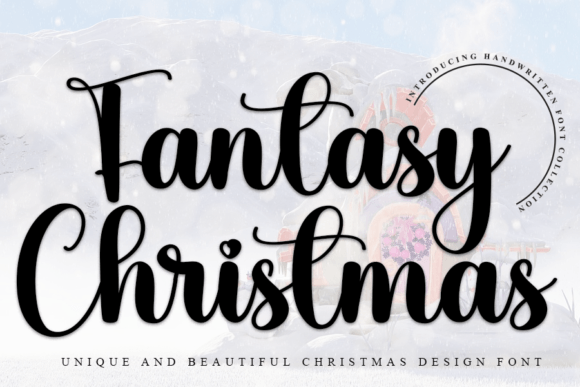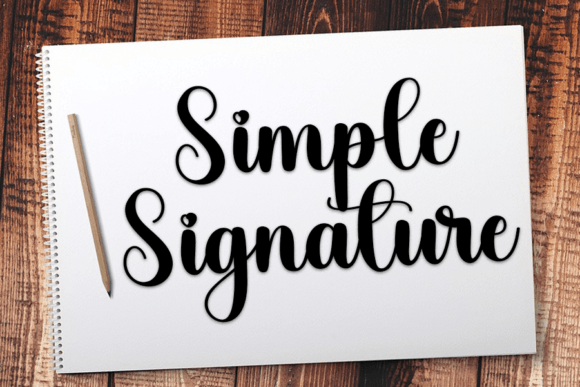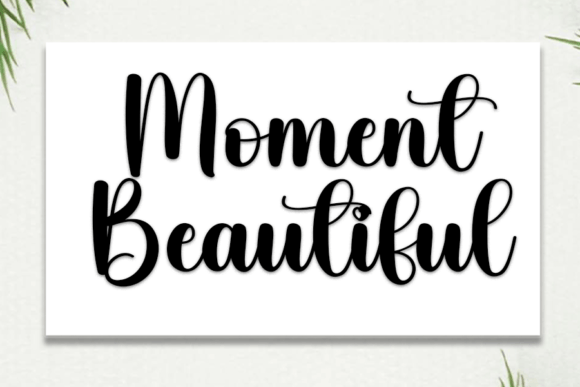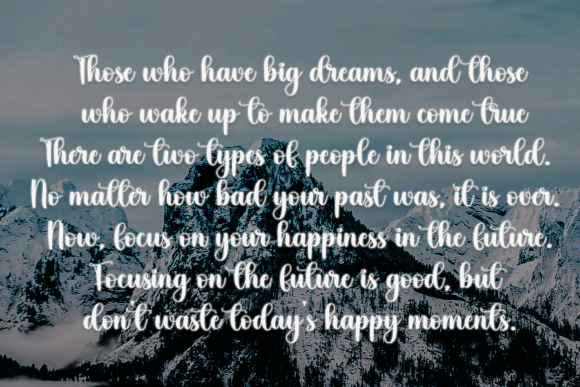
Fantasy Christmas Font
About the Fantasy Christmas Font
The Fantasy Christmas Font offers a perfect balance of form and function for your design needs. Amsterdam is a delicate handwritten font carefully crafted for a cool and unique design. This font can be used to write letters, invitations, food products, titles and more.
Its delicate, handwritten style makes it ideal for projects requiring a touch of whimsical charm, such as holiday-themed branding, invitations, or packaging for artisanal food products. Use it effectively for headlines, short quotes, or decorative elements where its unique character will shine. However, its low x-height and inconsistent stroke weight make it unsuitable for body text or UI elements where legibility is paramount.
Consider pairing “Fantasy Christmas Font” with a clean sans-serif like Open Sans for a balanced contrast, or a playful script font for a more whimsical feel. A classic serif typeface such as Garamond could offer a sophisticated counterpoint, adding a touch of traditional elegance.
The overall personality is lighthearted and festive, conveying a sense of joy and handcrafted quality. It’s best suited for brands and projects that aim for a friendly, approachable, and slightly nostalgic aesthetic.
Fantasy Christmas Font Usage Examples
Fantasy Christmas Font Example